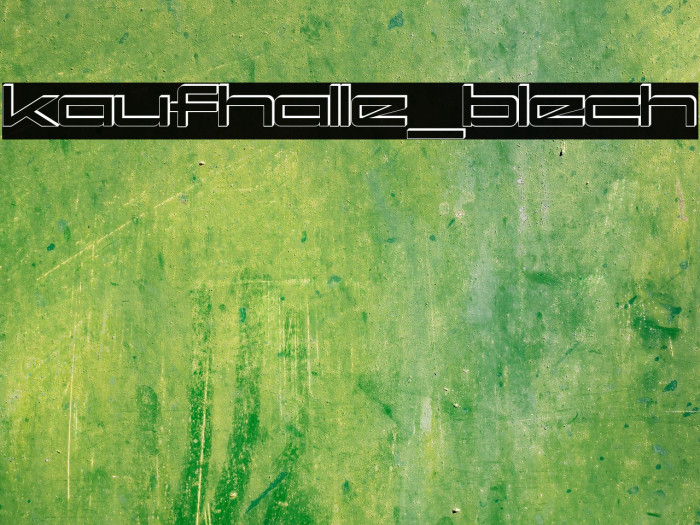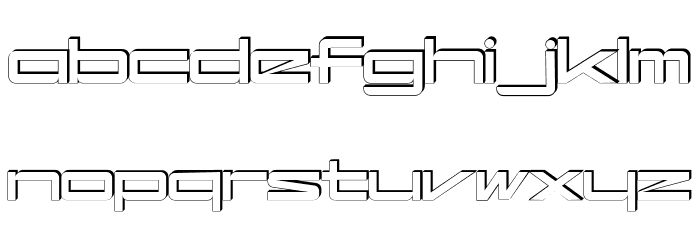
kaufhalle_blech Font
This font features a modern, geometric design with a distinct outline style. The characters are constructed with straight lines and sharp angles, giving them a futuristic and industrial appearance. The uppercase and lowercase letters maintain a consistent height, contributing to a uniform look. The numerals and special characters follow the same design principles, ensuring cohesion across all glyphs. The font's outline nature adds a unique dimension, making it suitable for eye-catching designs. Its clean and structured form is ideal for projects that require a modern and technical aesthetic.
A modern, geometric outline font with a futuristic and industrial style.
• Proposed Projects: Ideal for technology branding, futuristic posters, digital interfaces, and industrial-themed designs.